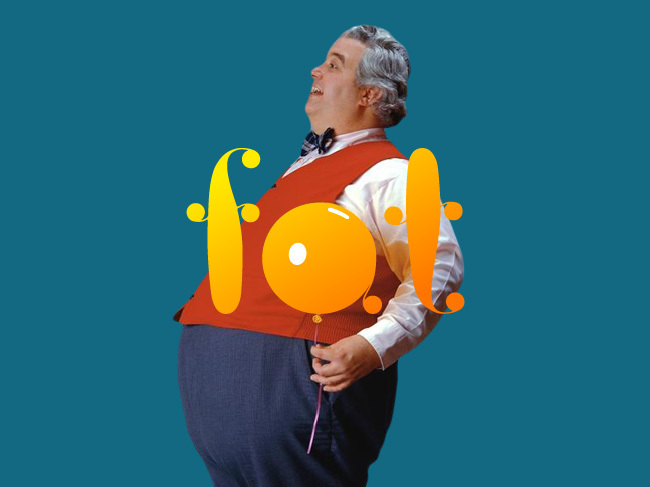
FatC by Aleksander Shevchuk is a free decorative display font with broad, bulbous letters and sudden hairline flourishes. Dots, curls, and pinched joins interrupt the otherwise dense silhouettes.
Its playful, fashion-conscious character suits audiences drawn to experimental magazines, club culture, and offbeat product design. The rounded mass and fine ornamental strokes could shape cosmetics packaging, music posters, or boutique branding with a distinctly eccentric voice. In editorial design, it can turn a cover line into an illustrated element, with the scattered beads and looping details echoing spot graphics across the page.